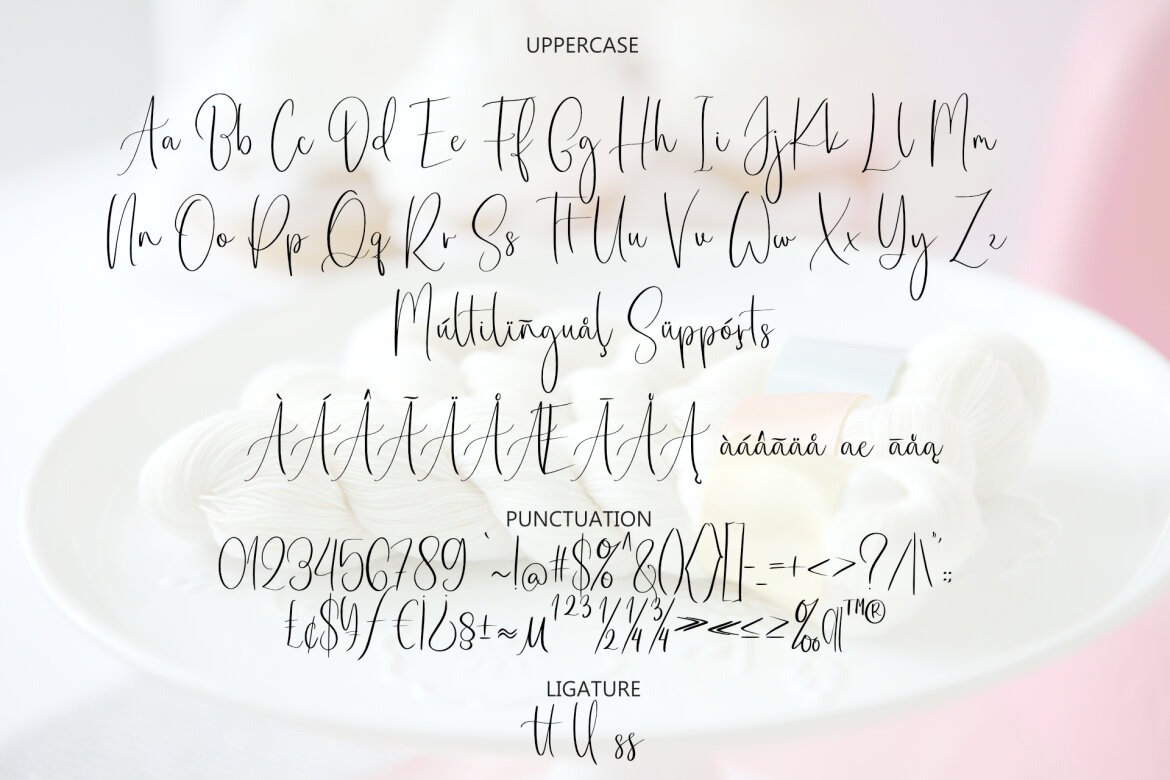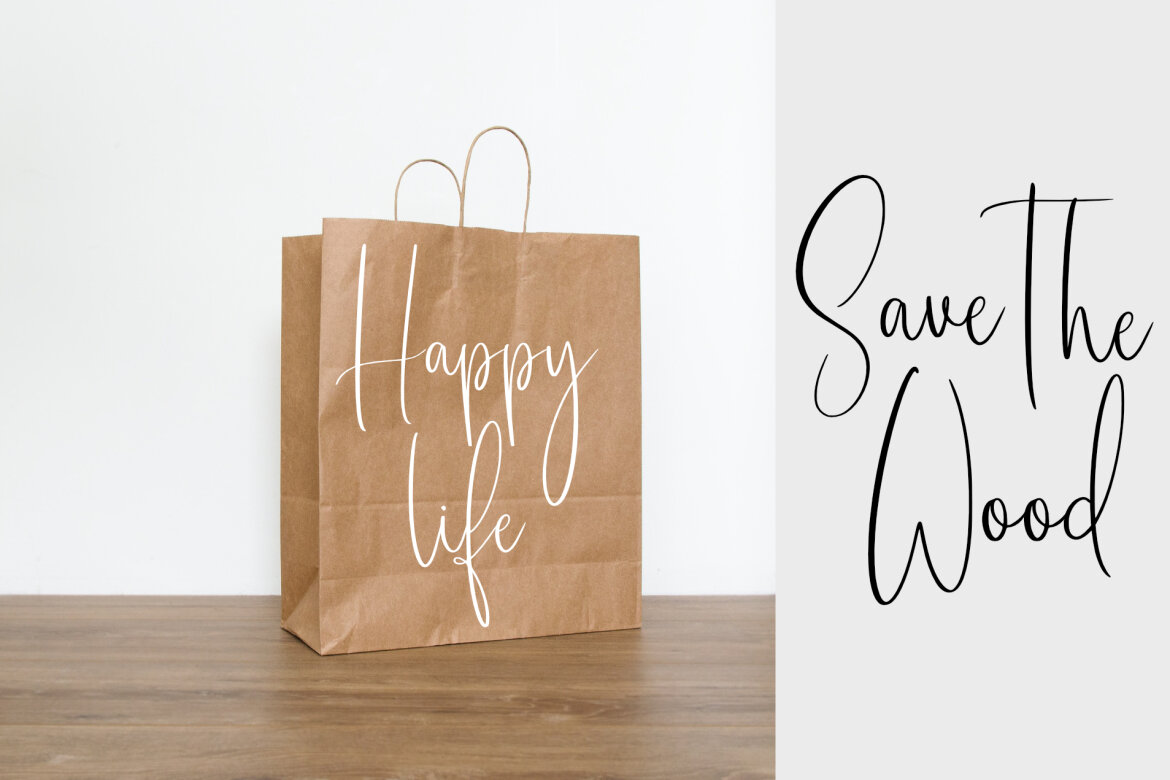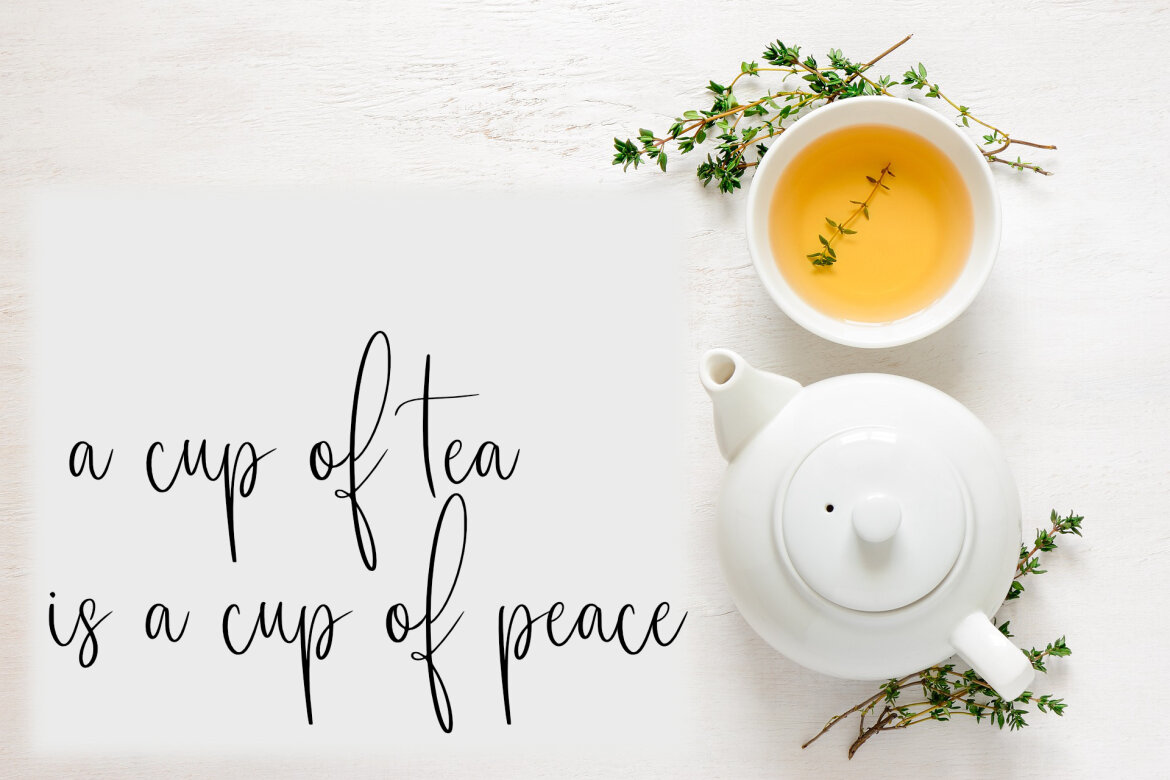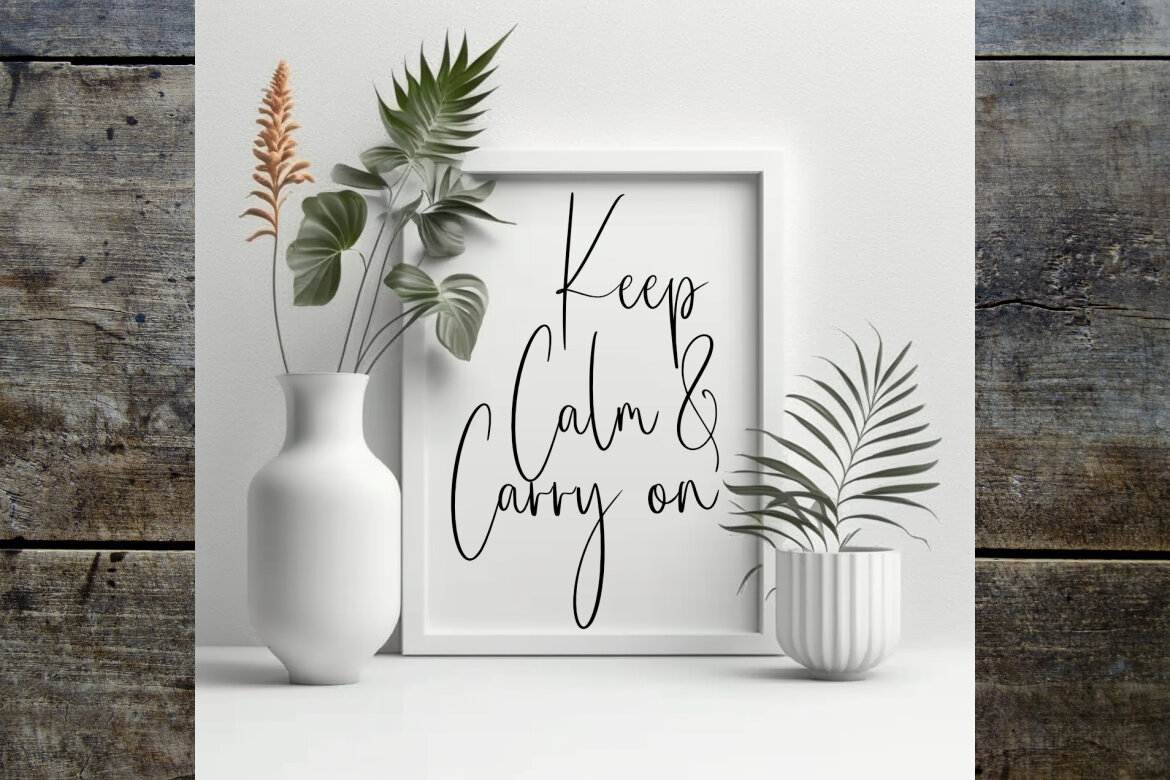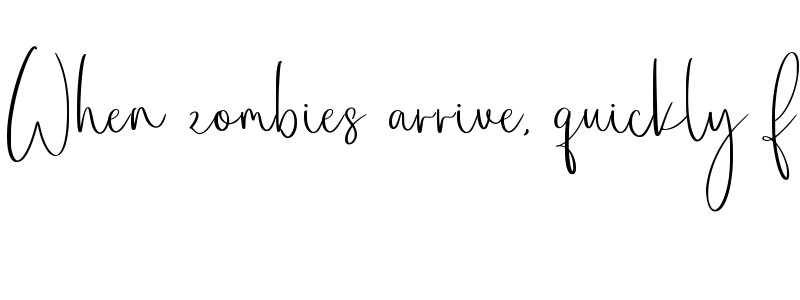
Othello Free Typeface
Othello Typeface is a sophisticated and elegant script font designed for those who seek to add a touch of timeless beauty to their designs. Inspired by classic calligraphy, Othello combines smooth, flowing letterforms with a contemporary edge, making it perfect for invitations, branding, logos, posters, and any project that requires a handwritten, personal touch.
This font features carefully crafted curves and organic strokes, giving it a graceful yet bold character. Whether you're working on a luxury brand identity, wedding stationery, or creative art projects, Othello adds an air of refinement and style. With a wide range of letter variations and ligatures, it ensures your designs are not only eye-catching but also unique.
Bring your creations to life with Othello – the ideal typeface for anyone looking to infuse elegance and flair into their work.